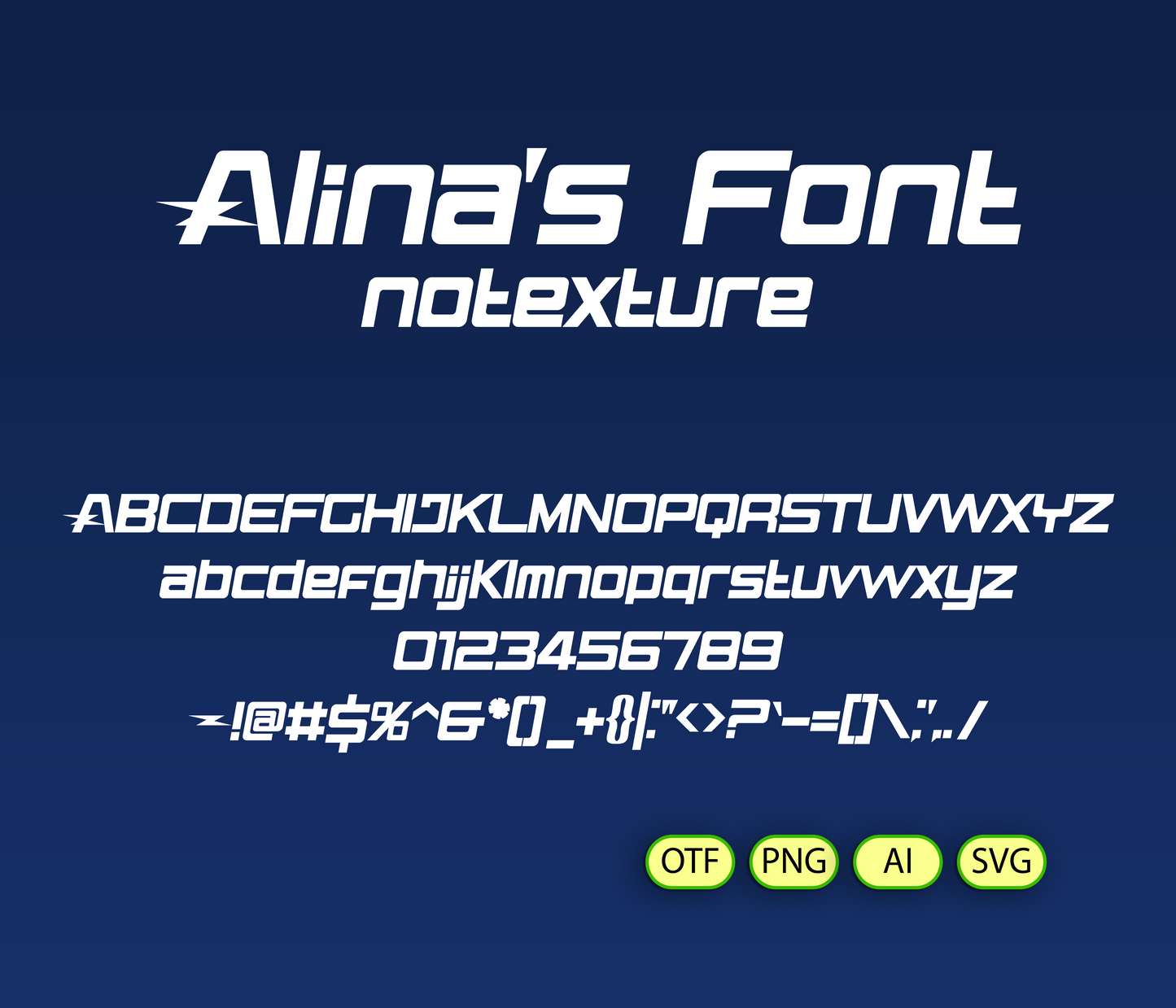
Speedster Hero Font Plain Style
Step into the electrifying world of lightning-fast action with our Speedster Hero Font Plain Style, capturing the essence of supersonic velocity and crimson-clad heroism. Perfect for comic enthusiasts, themed event organizers, content creators, and design professionals, this font brings the dynamic, energetic spirit of velocity-powered champion stories to your projects. Create attention-grabbing invitations, branded merchandise, or digital content with the thrilling presence of swift superhero narratives.
Bold Typography for Comic-Inspired Design & Heroic Projects
Our Speedster Hero Font Plain Style features dynamic, stylized letterforms with smooth, clean finishes reflecting the world of rapid-movement champions and metropolitan adventure settings.
- Event Promotions: Create attention-grabbing invitations, displays, and promotional materials for themed celebrations, comic conventions, and fan gatherings that capture the spirit of velocity-based entertainment
- Merchandise Design: Perfect for apparel, artwork prints, adhesive graphics, and collectibles that showcase the dynamic aesthetic of swift superhero themes
- Digital Media: Enhance websites, content platforms, and social channels with electrifying headers and imagery that express the excitement of supersonic adventures
- Creative Content: Add signature flair to fan illustrations, character artwork, and expressive projects inspired by rapid-action hero tales
- Personal Projects: Bring energetic style to scrapbooks, DIY creations, and home decoration inspired by the world of lightning-quick champion characters
Our font pays tribute to the world of velocity-powered hero stories and comic book culture, empowering your projects with its dynamic and electrifying spirit. Whether crafting fan materials, designing themed products, or adding a heroic touch to personal projects, this font communicates the thrilling essence of supersonic entertainment. Ready to inject lightning-fast energy into your creations? This font is your key to attention-grabbing, impactful design.